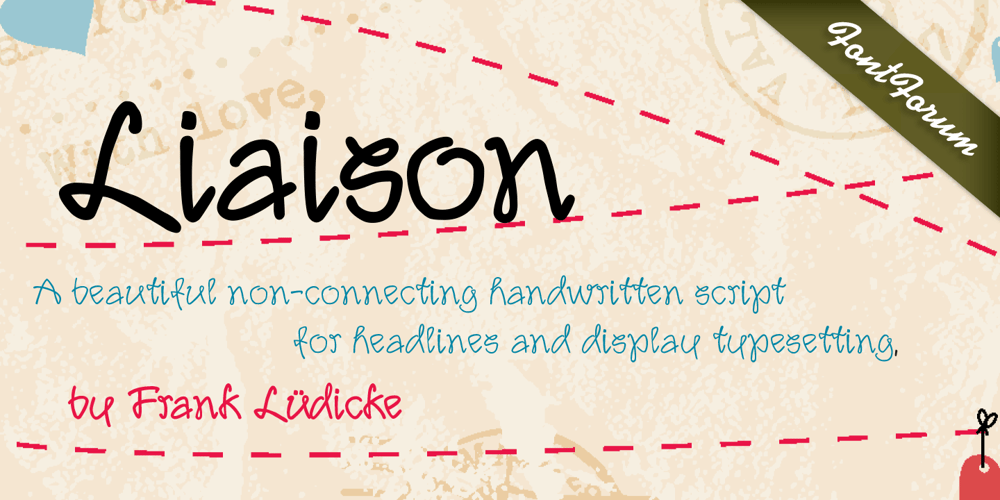
Liaison Font Family was designed by Frank K. Lüdicke and published by URW Type Foundry. Liaison contains 2 styles and family package options. Liaison is a beautiful non-connecting handwritten script for headlines and display typesetting, e.g. for perfumes, reports of the glamour world, magazines about gardening and recipes, covers for romance novels and alike.